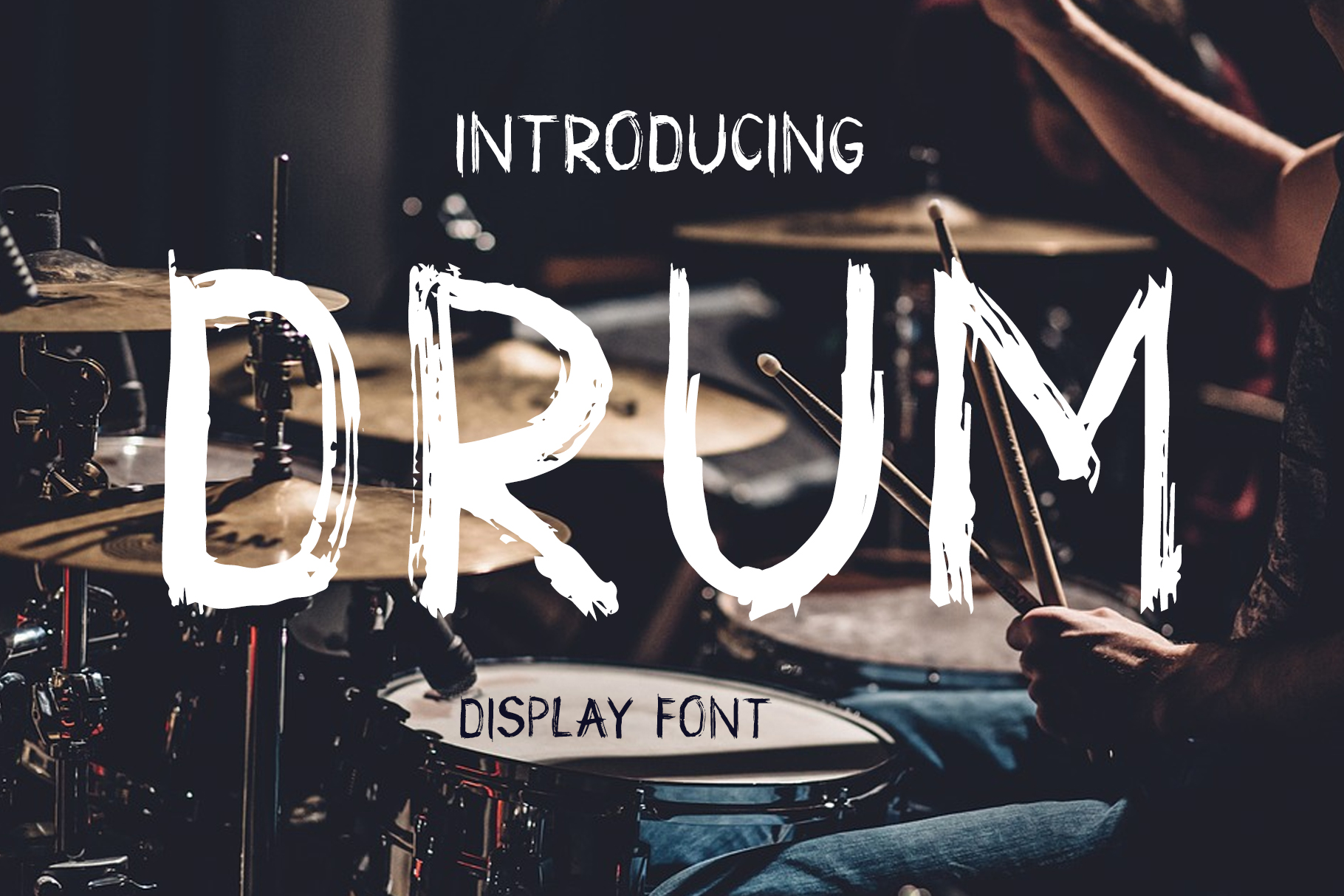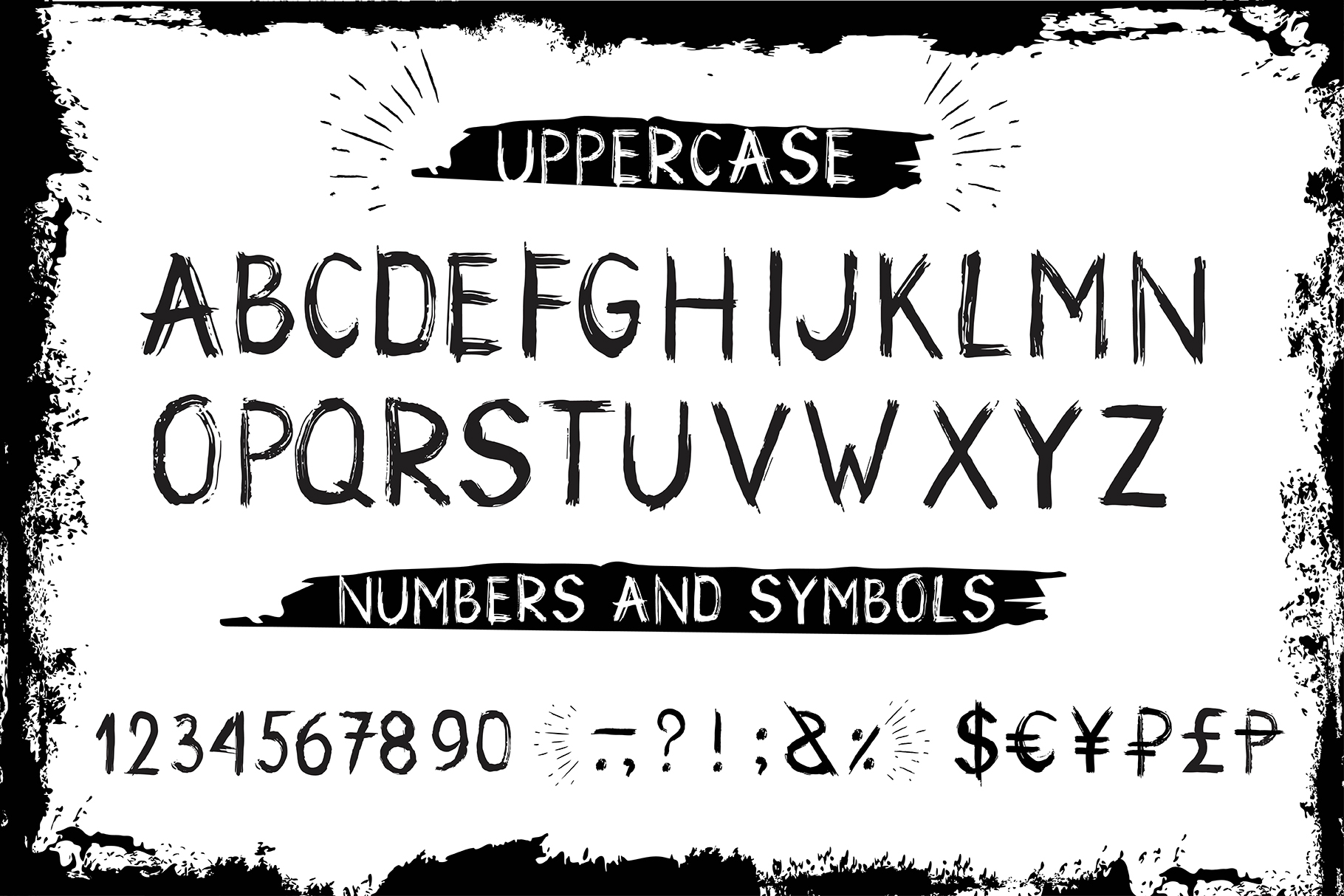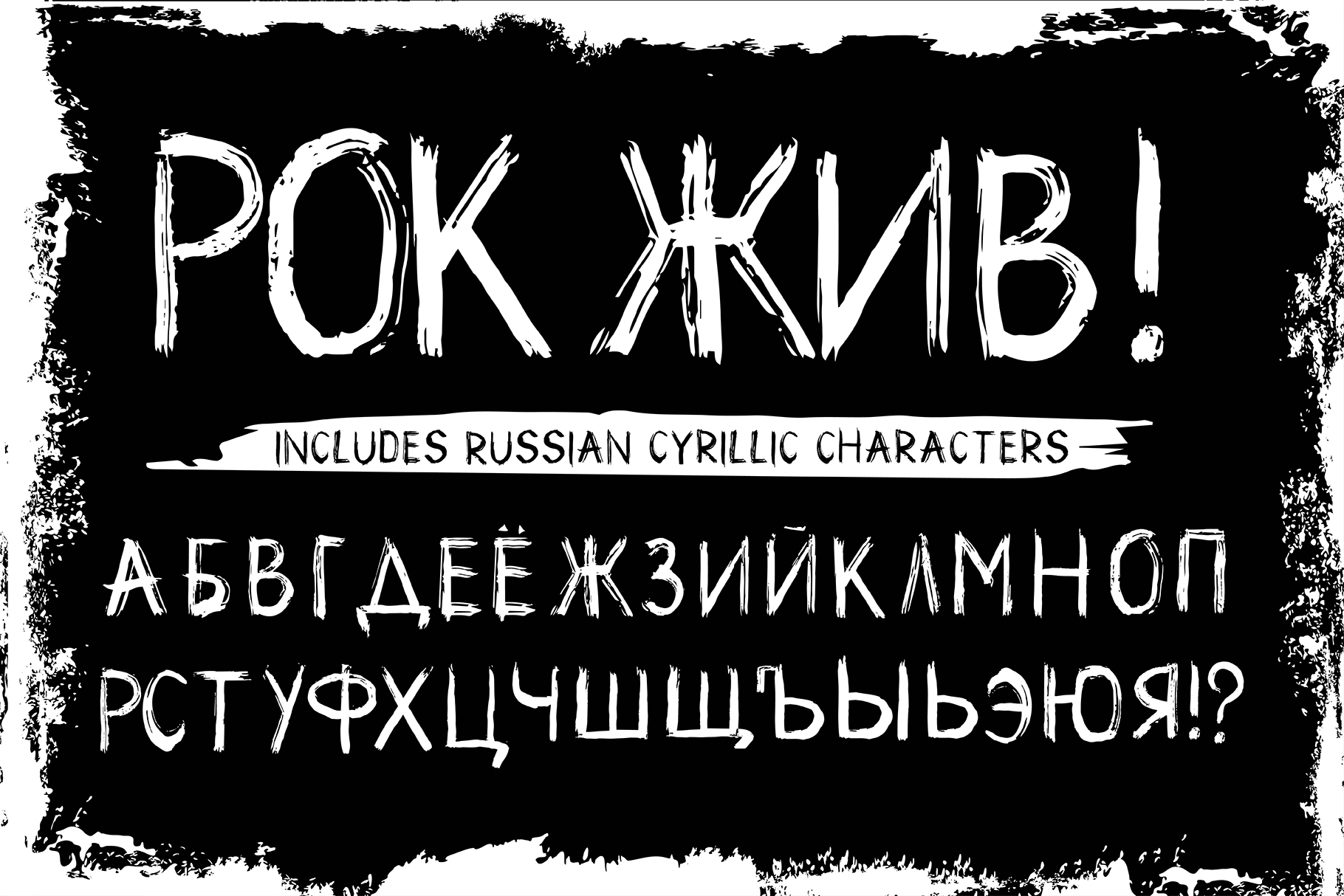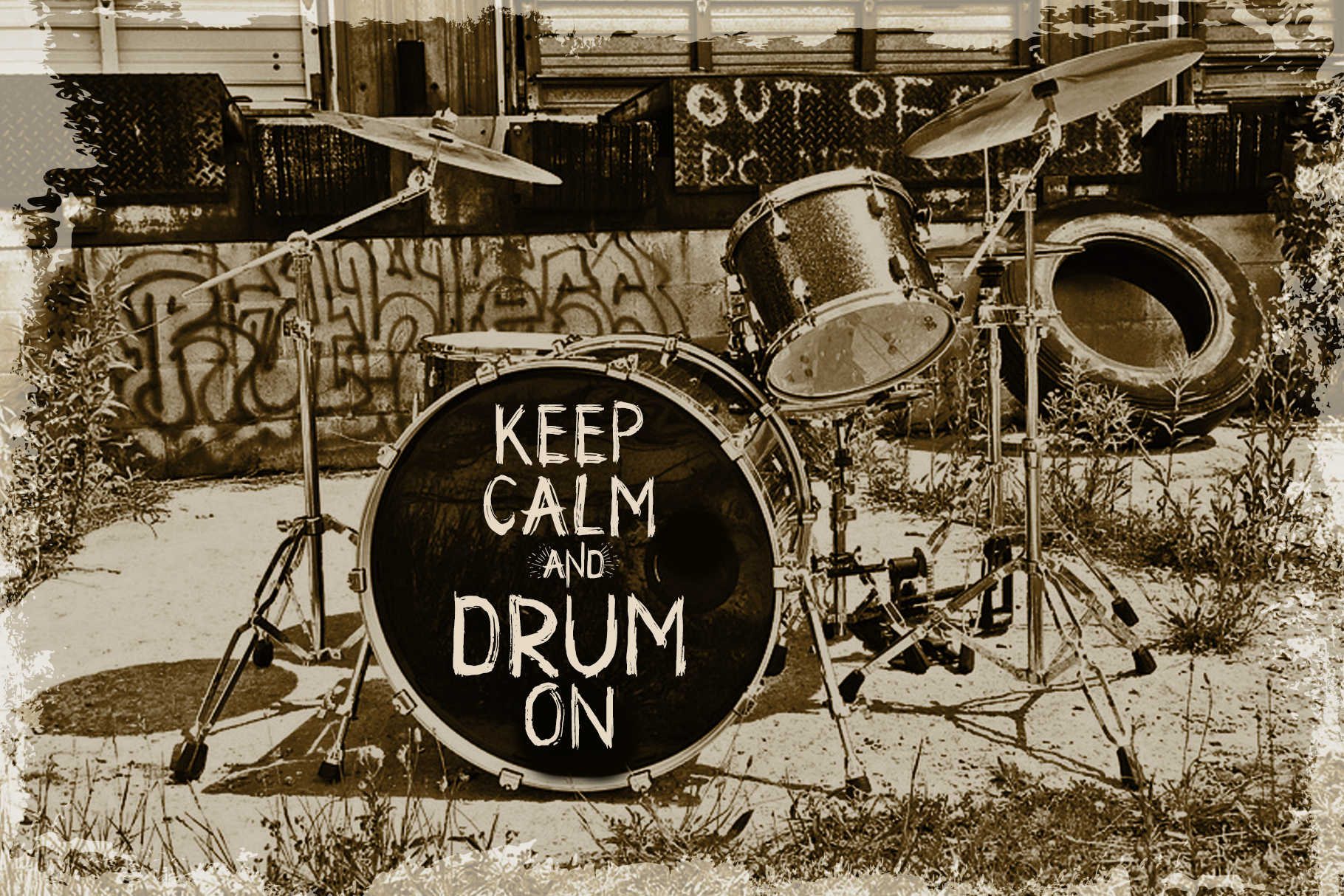
Drum Font
About Drum Font
Drum is a grunge styled display font, perfect for headlines and display purposes; with an all caps set of characters, Drum is most useful in large formats and for giving your projects a branded look.